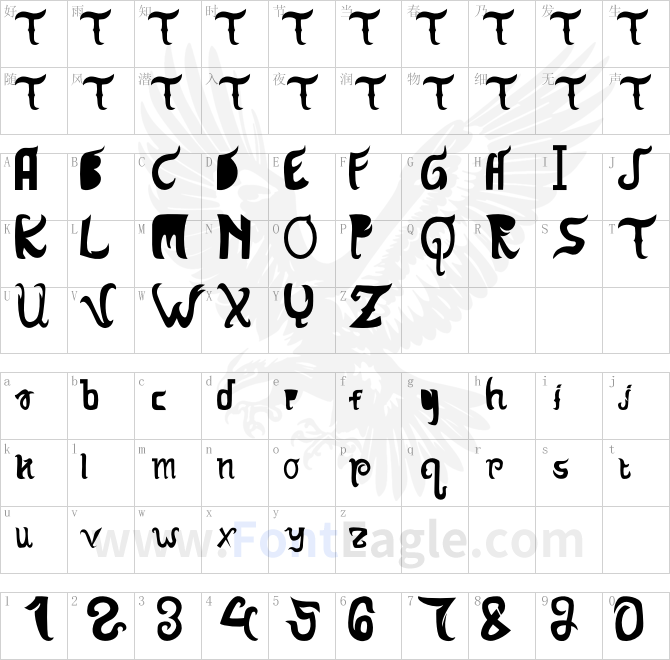
Hanatasya-Sans is a great font, widely used in graphic design, single-page menu design, poster design and other fields, and is deeply loved by designers.Hanatasya-Sans download.